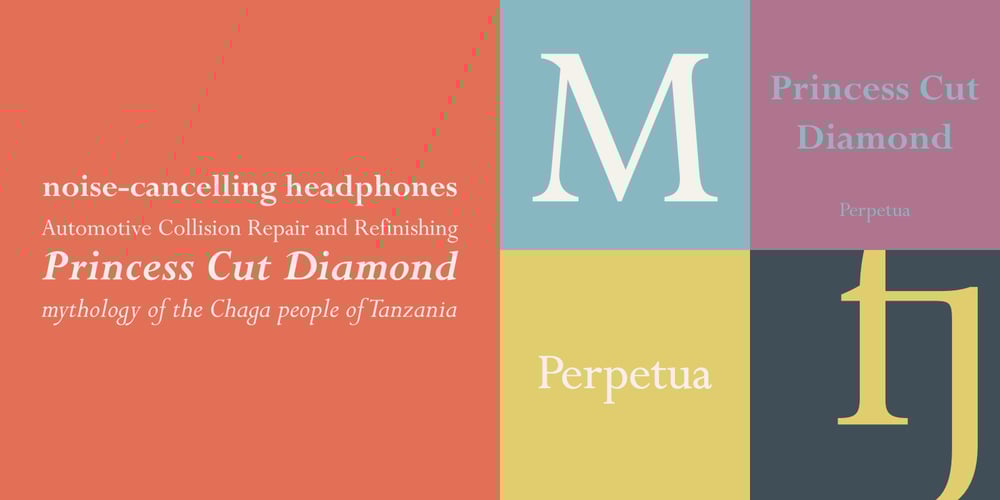
Perpetua Font Family was designed by Eric Gill and published by Monotype. Perpetua contains 7 styles and family package options. Eric Gill’s personal version of the Lapidary letterform.Perpetua® font field guide including best practices, font pairings and alternatives.Featured in: Best Fonts for Tattoos